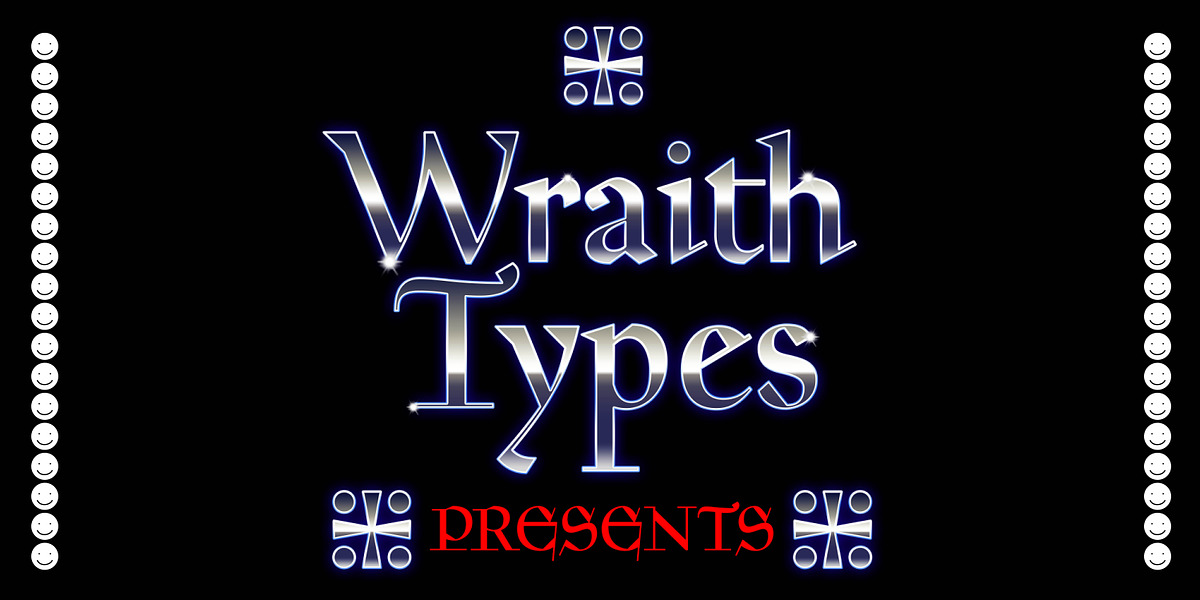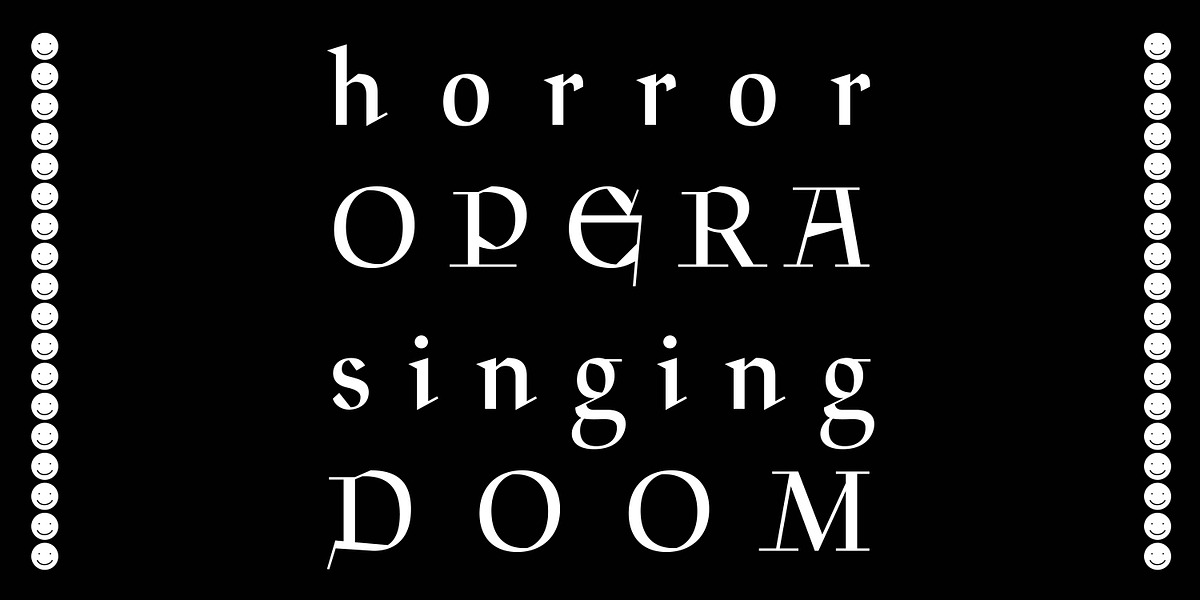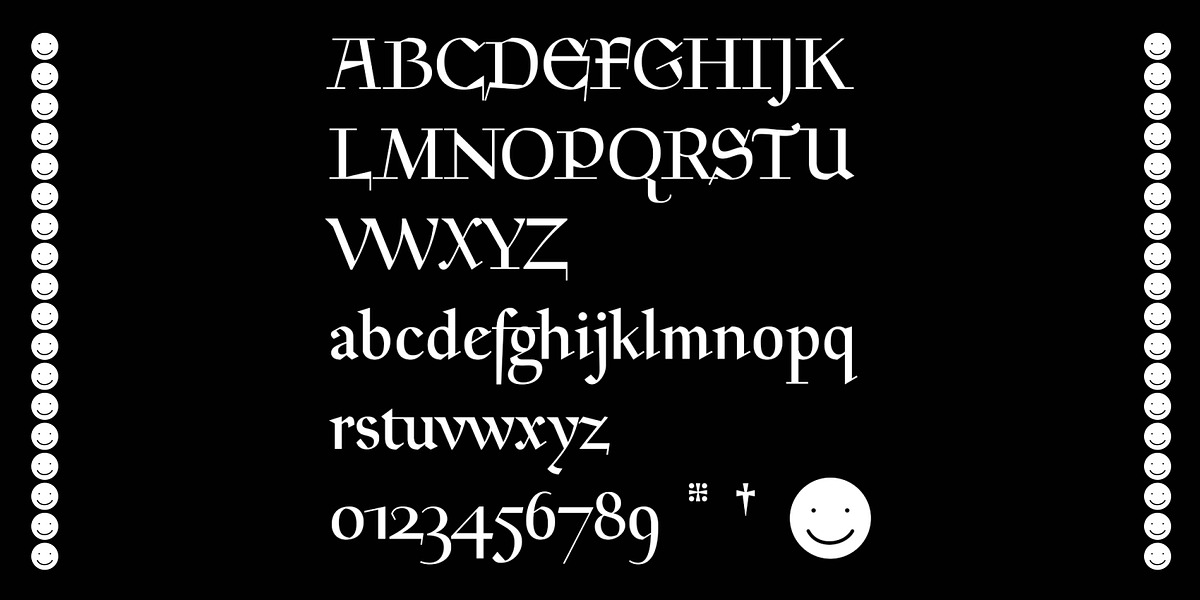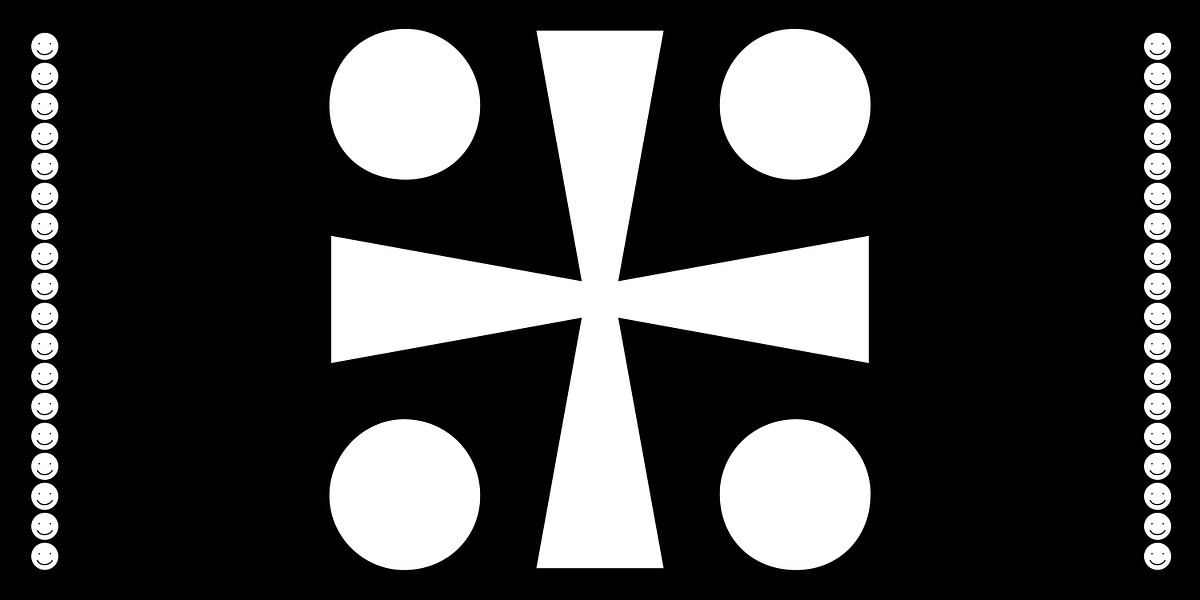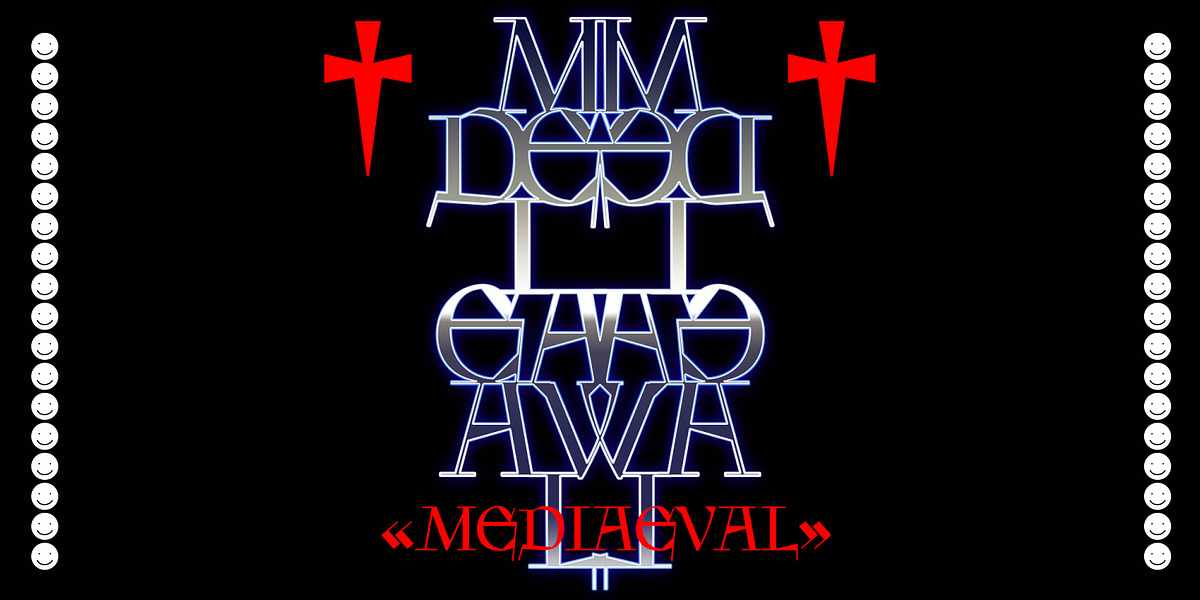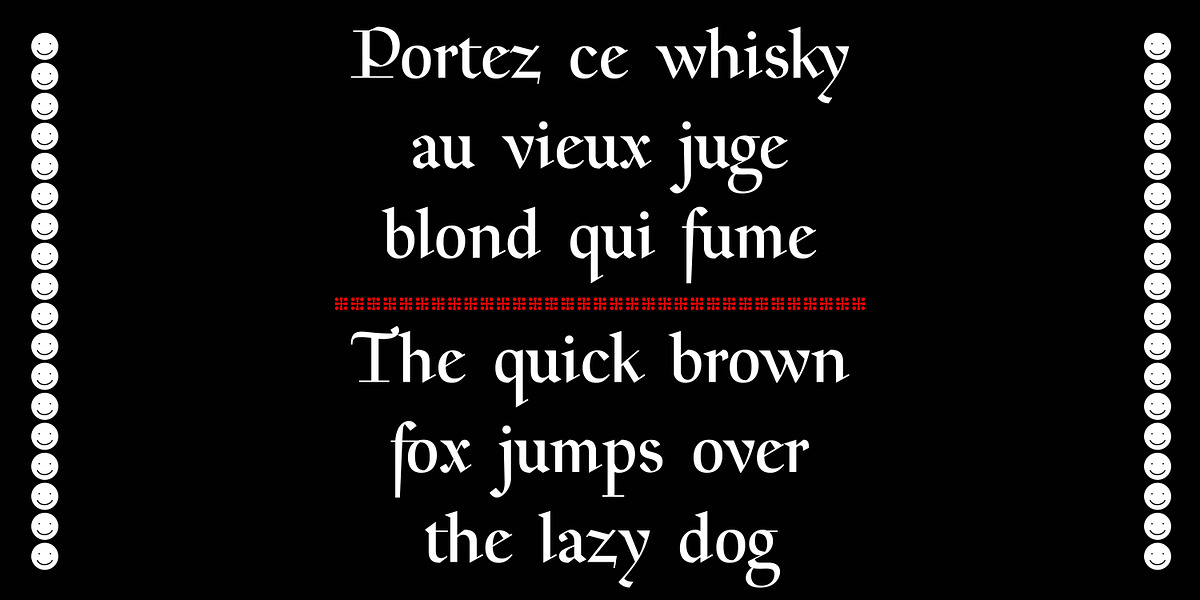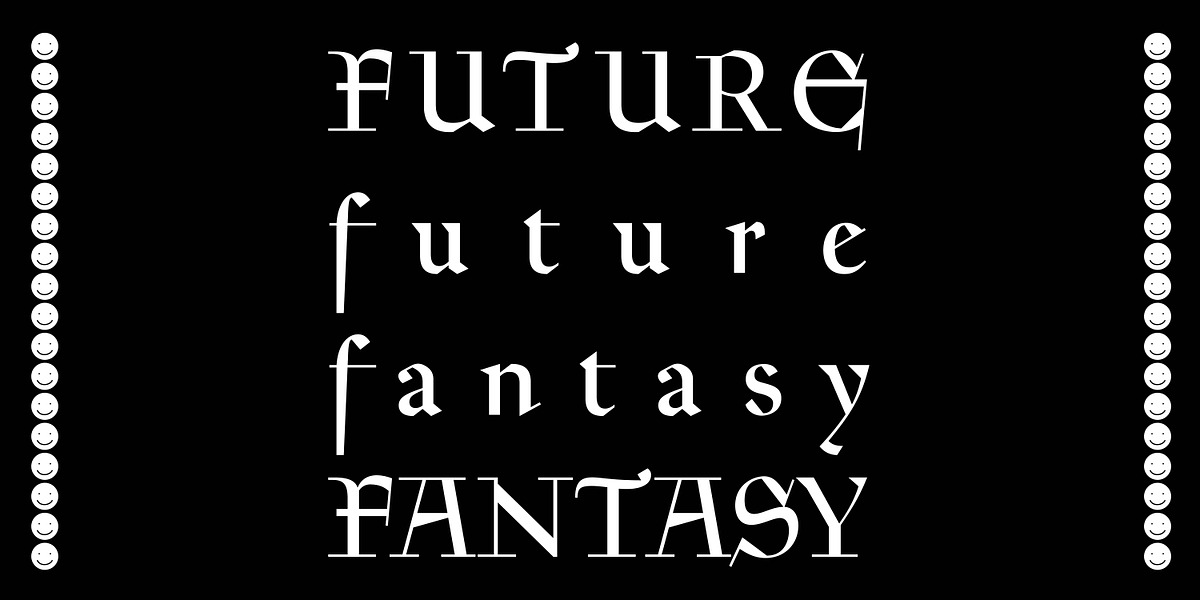
WT Mediaeval
WT Mediaeval is a modern interpretation of a historical serif font originally designed by Goudy in the 1920s. It draws inspiration from medieval manuscripts while incorporating contemporary design elements to create a unique fantasy aesthetic.